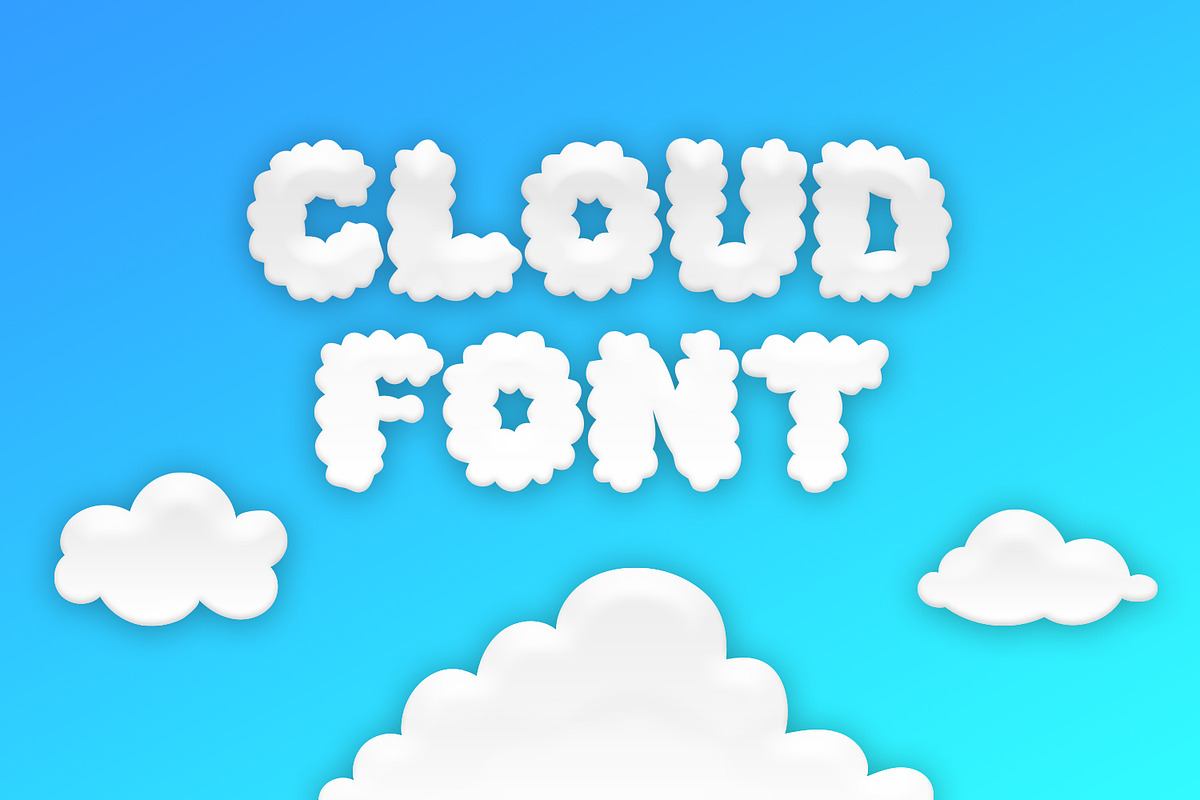
Cloud Font Free Download is a soft, airy typeface designed to evoke a sense of lightness and serenity. With its rounded, smooth curves and gentle flow, this font is perfect for projects that need a calming, modern touch. Whether you're designing for a wellness brand, creating soothing social media content, or crafting peaceful invitations, Cloud brings a sense of tranquility and elegance. Its versatile design works beautifully for both digital and print applications. Cloud Font Free Download allows you to explore its airy style in personal projects before purchasing a commercial license. Add a peaceful, dreamy vibe to your designs with this beautifully crafted font that captures the essence of the sky.